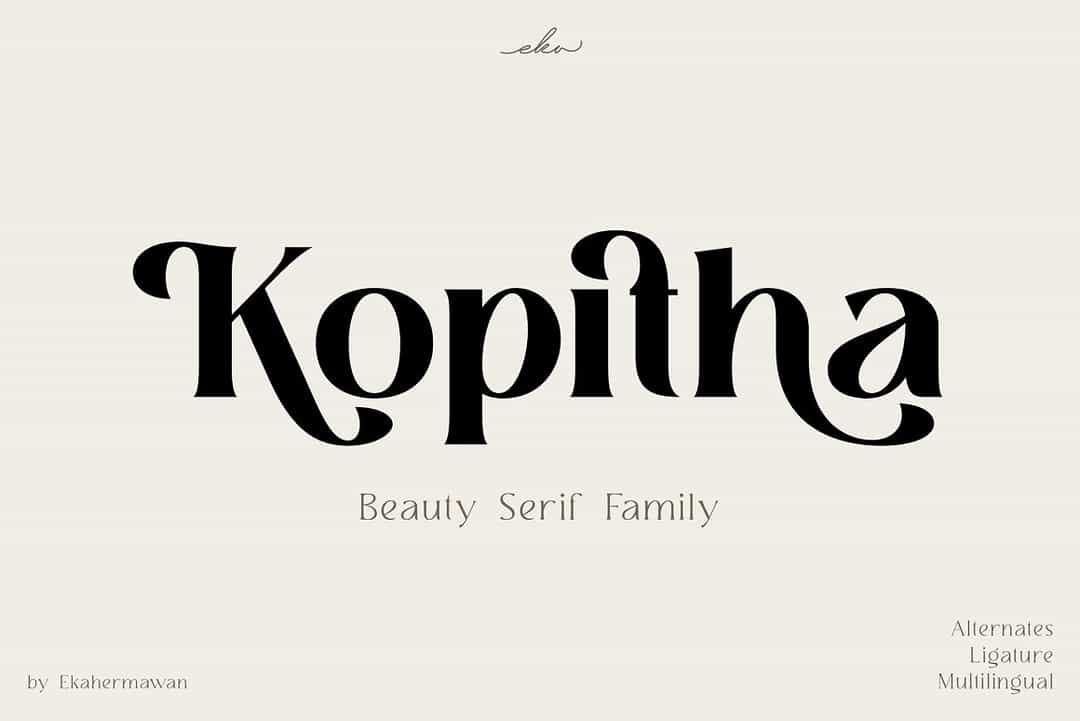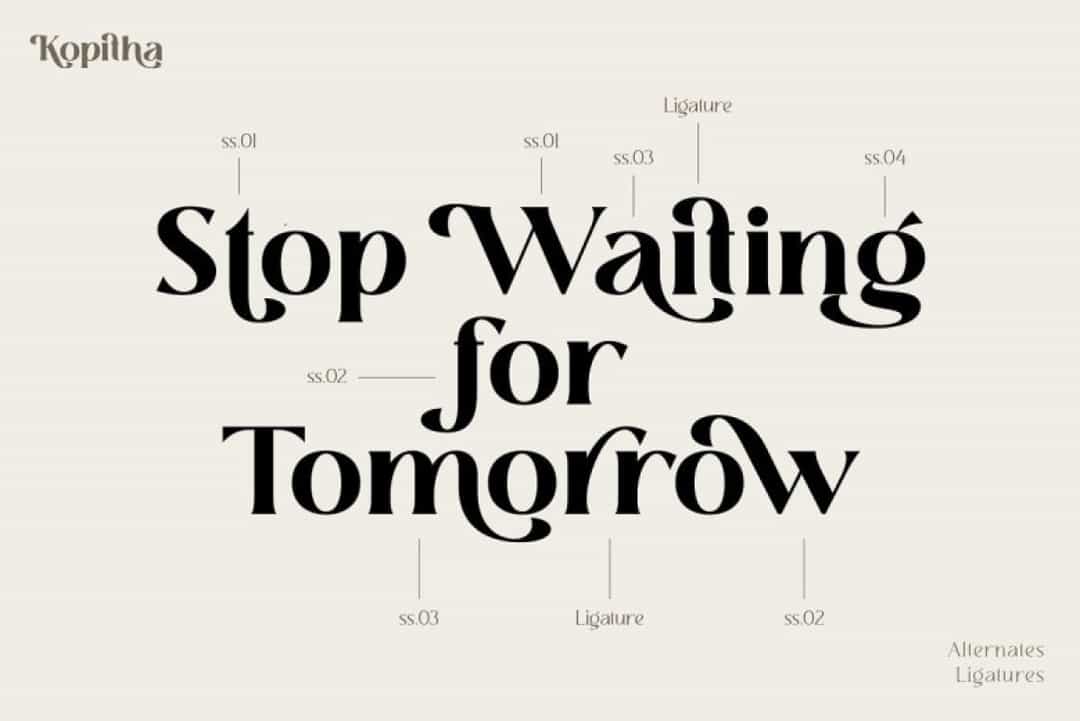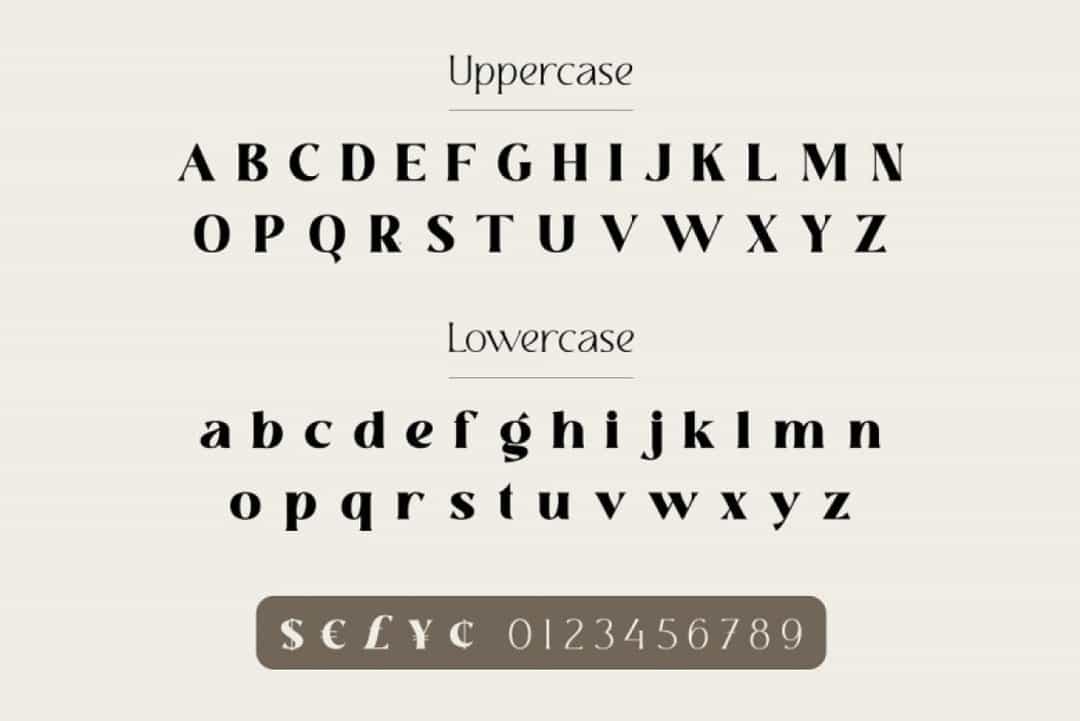
Kopitha Font is an elegant serif family, boasting five weights from Medium to ExtraBold. Furthermore, this font comes equipped with PUA encoded characters and ligatures to offer unique typographical solutions.